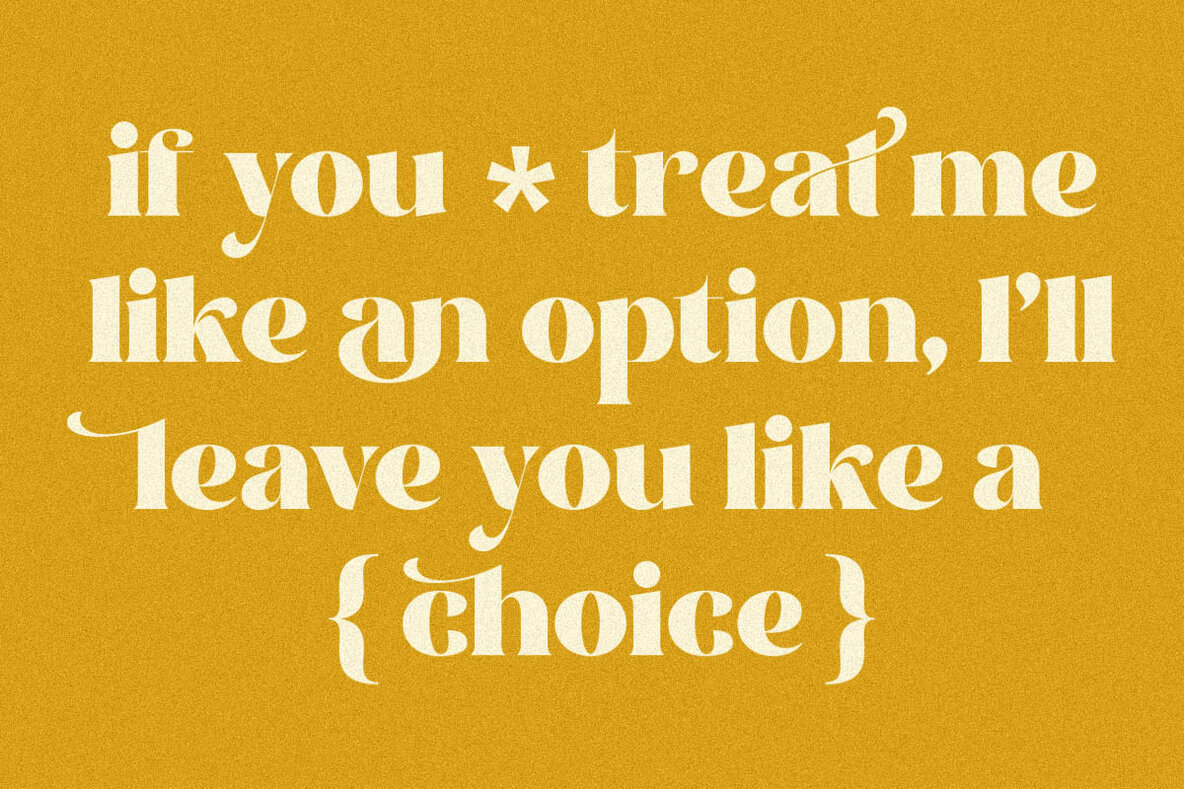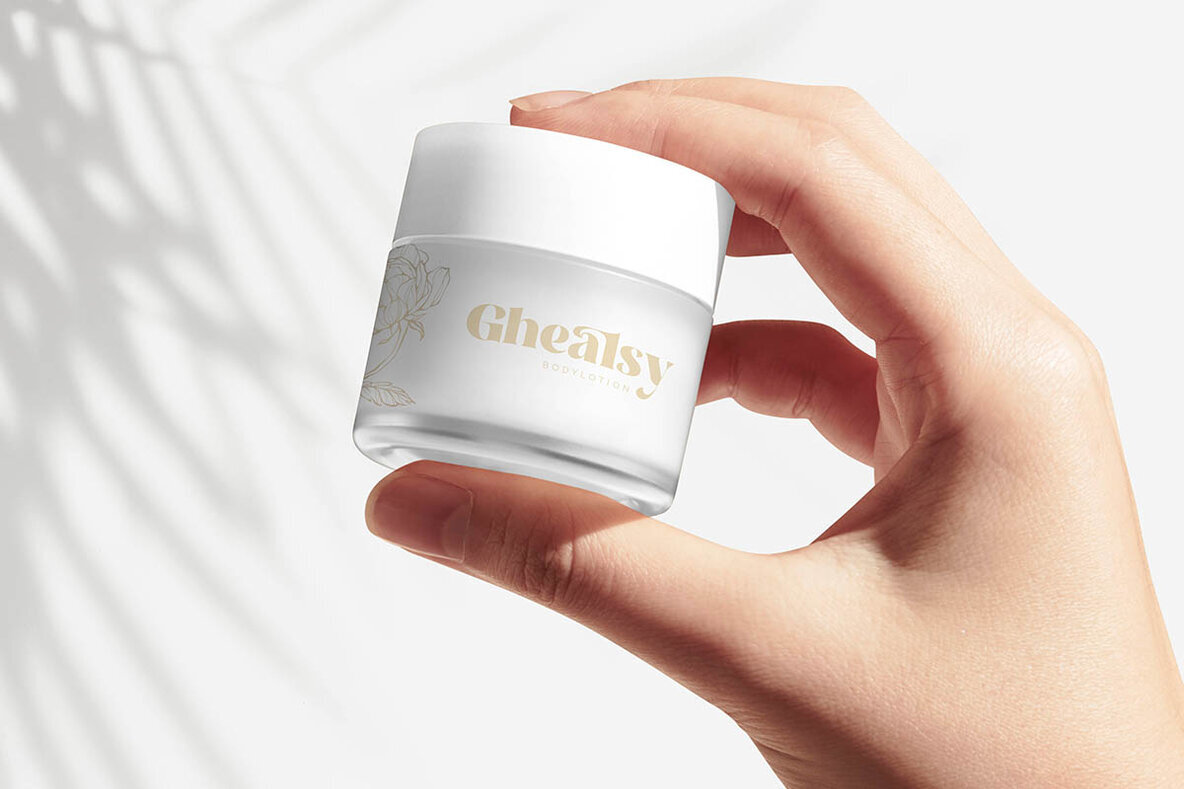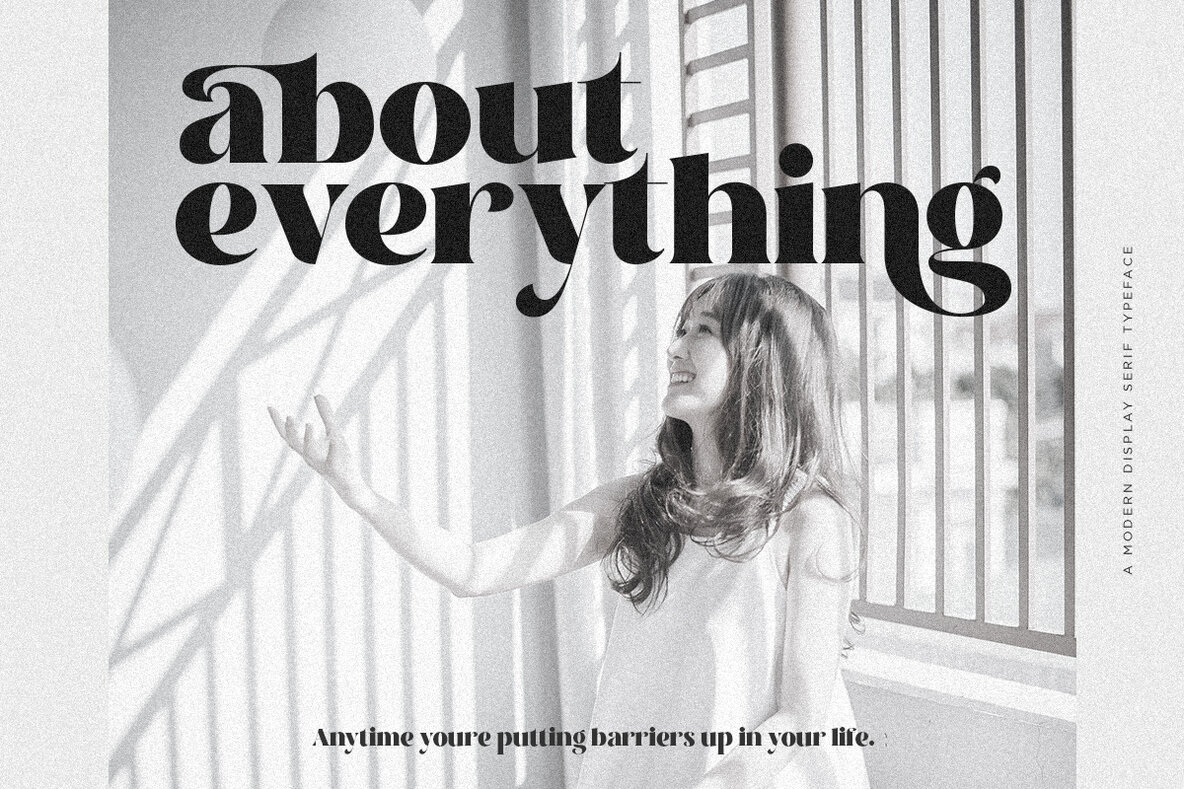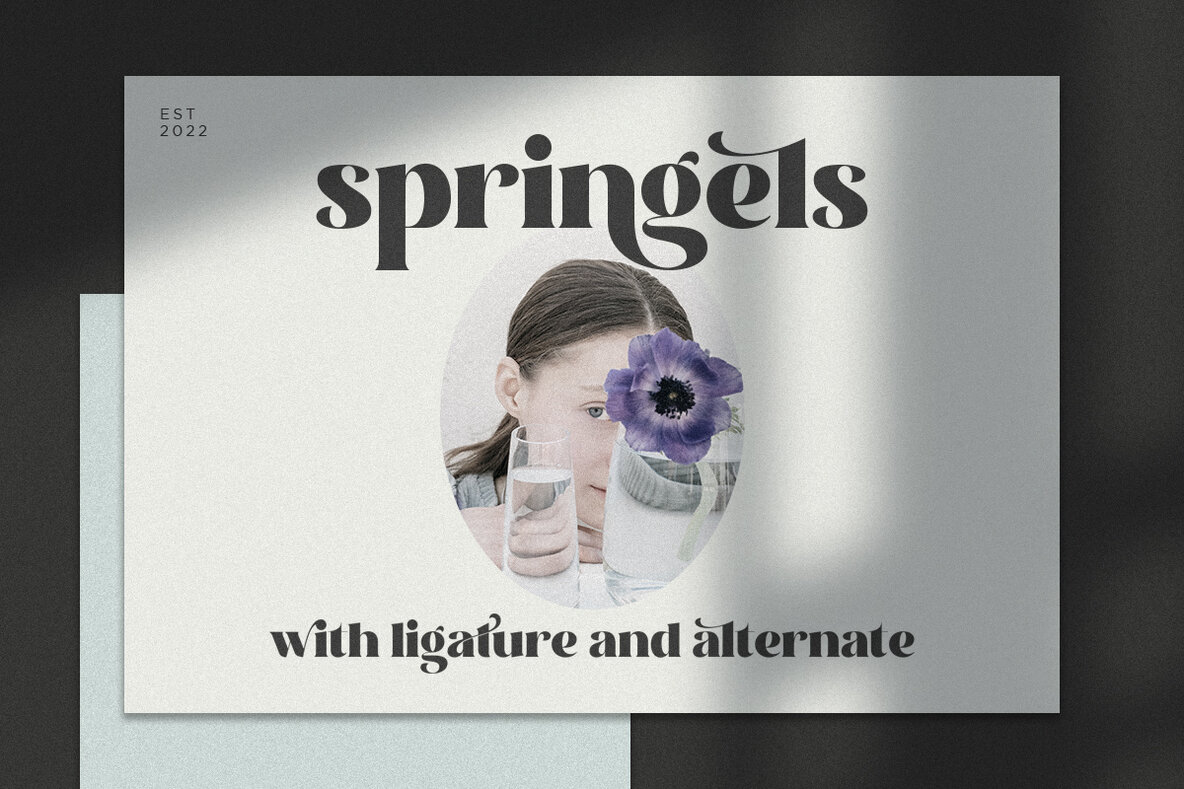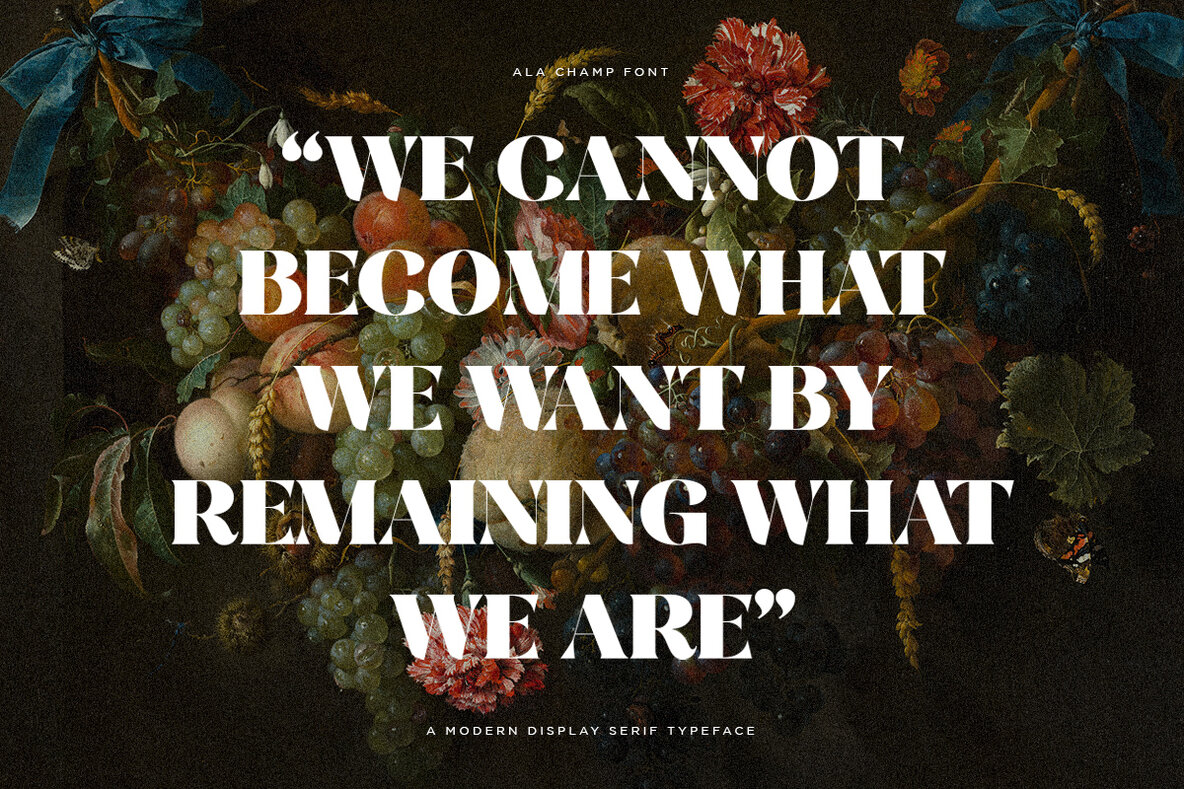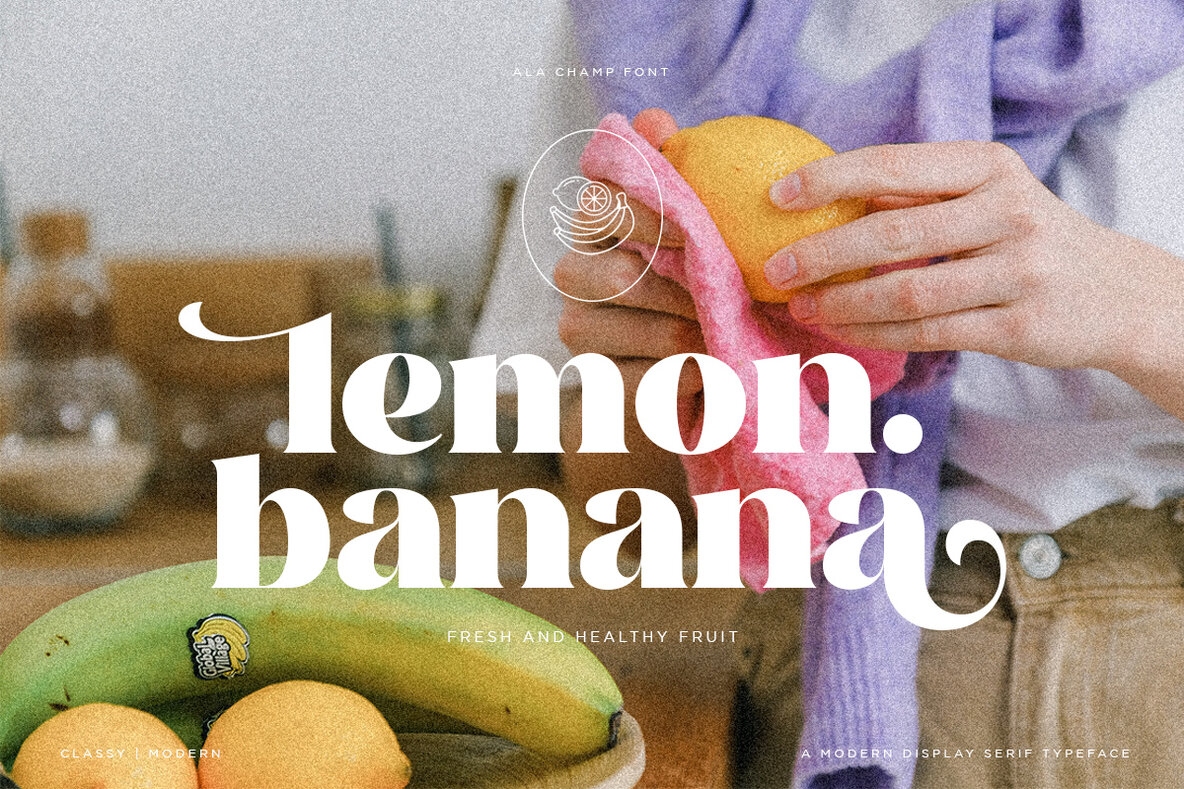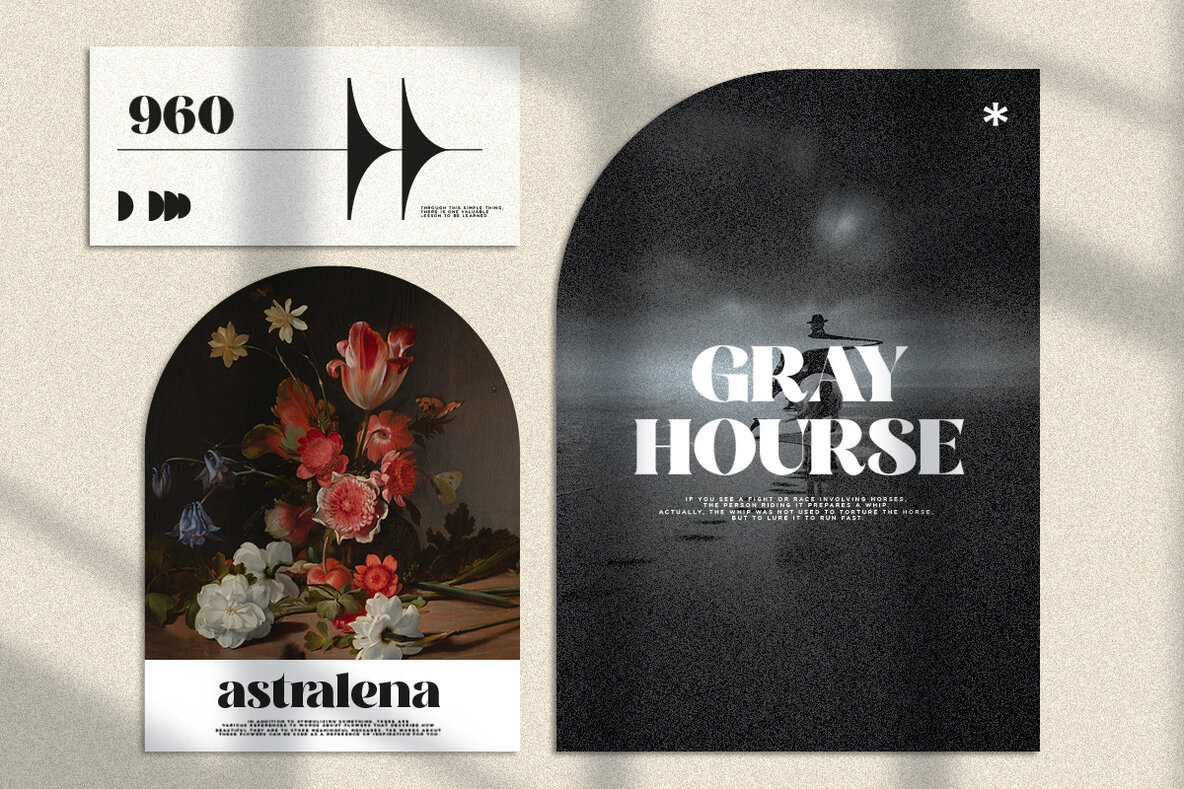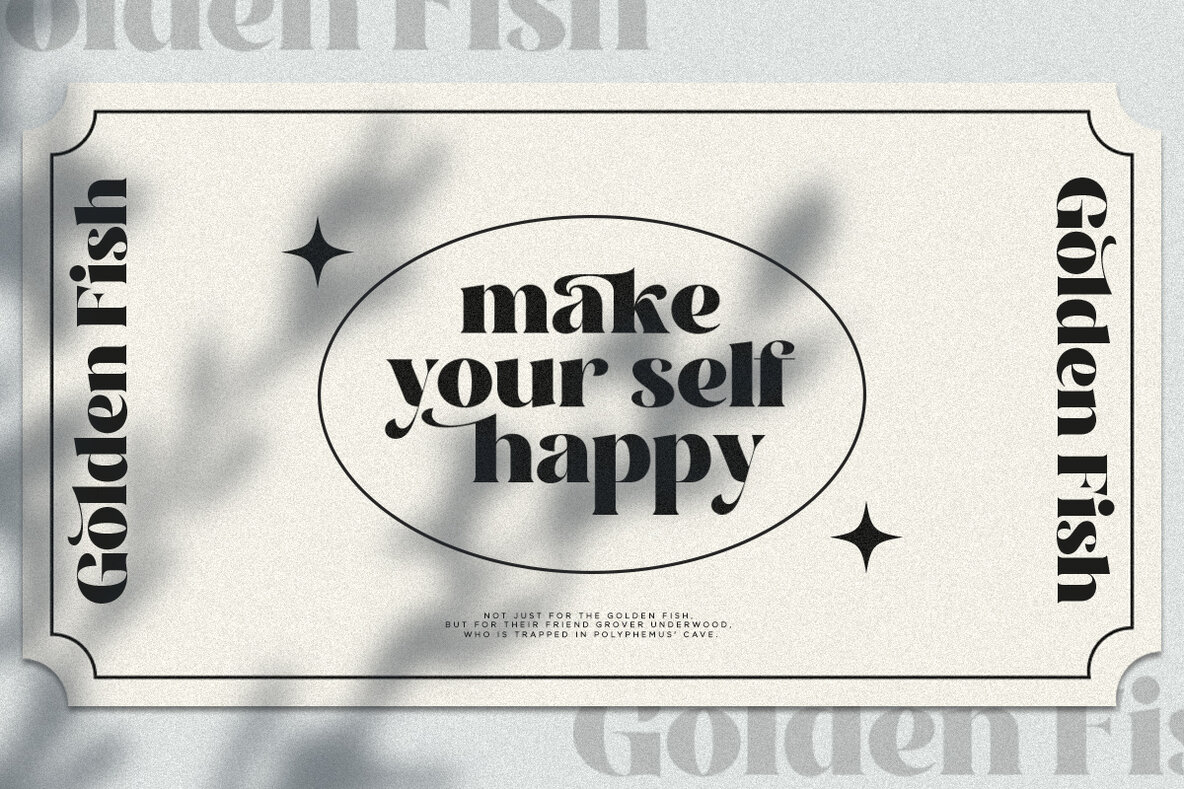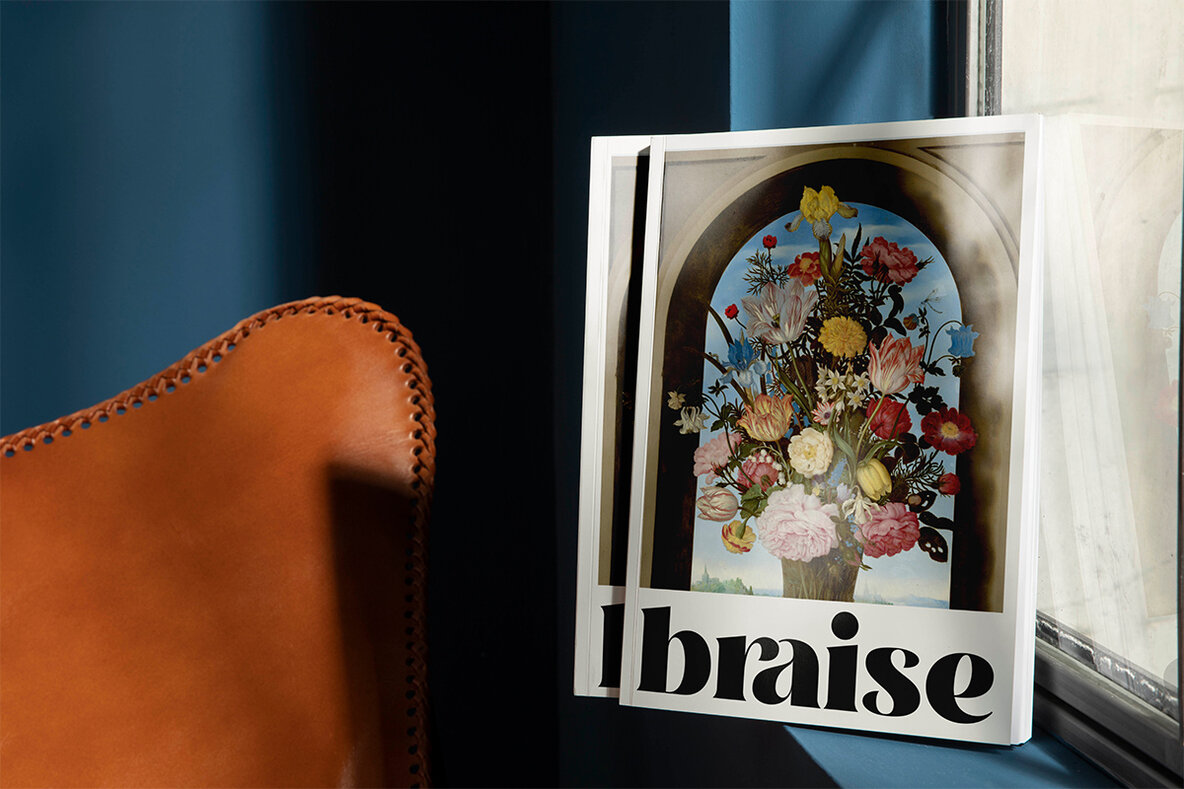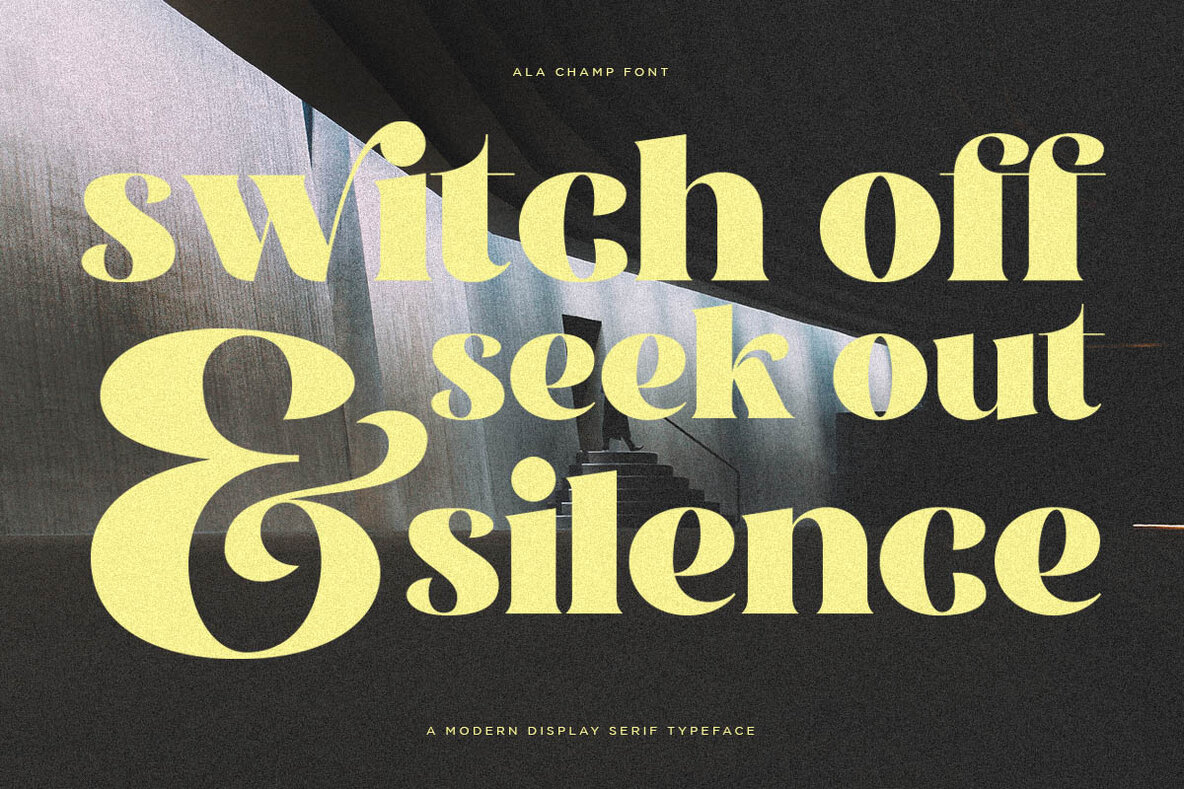
ala champ Font
ala champ
Ala Champ is an innovative display font that captures a chic and stylish aesthetic, making it ideal for visually striking design projects. Its modern character is crafted to fit contemporary branding needs with ease. Note the licensing restrictions: the desktop license permits installation on one user’s two computers, but forbids use in broadcast or cinematic ventures and resale without permission. For alternate licensing needs, contact directly for more details.Ala Champ: Modern Display Character